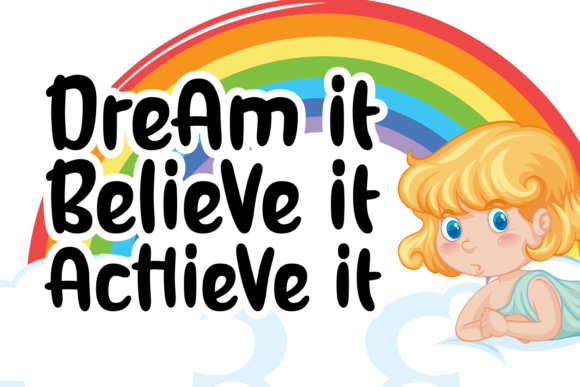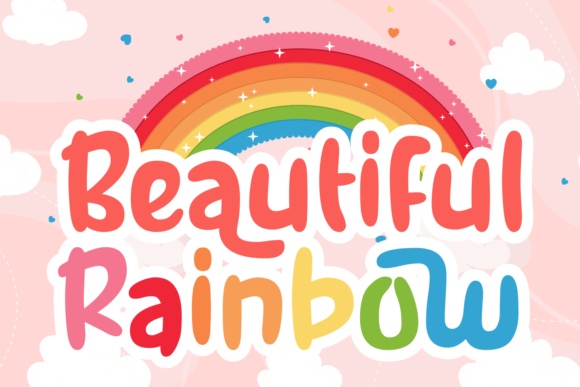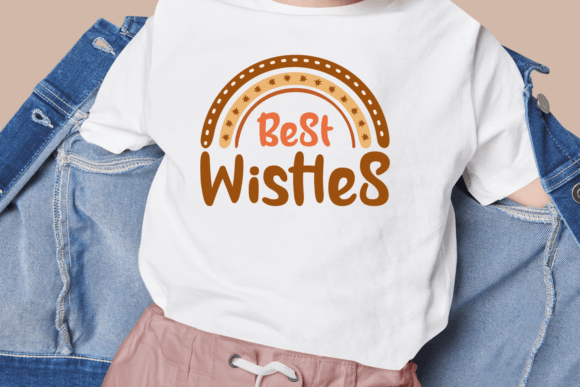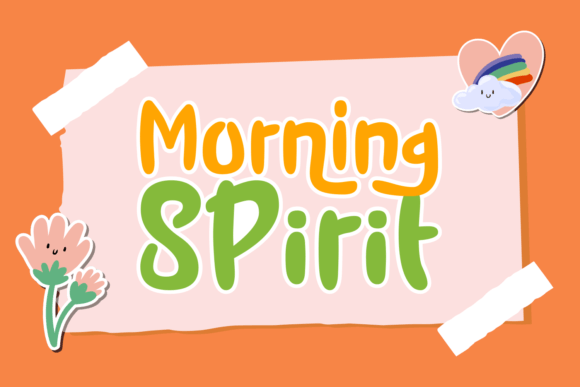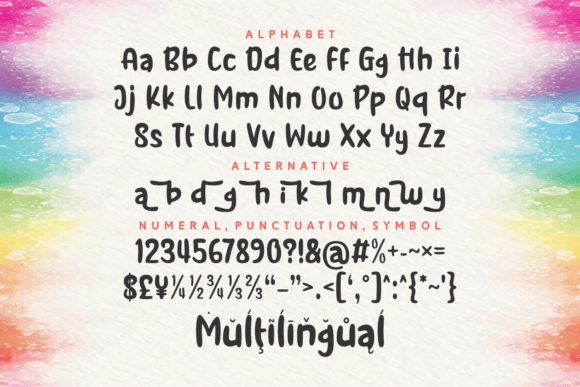
Introduction to Rainbow Sparkle Font
Rainbow Sparkle is a font that shines and dazzles with its sparkling and attractive letterforms.
With its bold, glittering strokes and eye-catching style, this font is perfect for creating designs that demand attention Let your creativity sparkle and shine with Rainbow Sparkle and create designs that truly stand out.
Key Features of Rainbow Sparkle Font
Why Choose Rainbow Sparkle Font?
Rainbow Sparkle Font offers exceptional quality and versatility, making it a valuable addition to your design toolkit. Whether you’re creating for personal projects or commercial use, Rainbow Sparkle Font delivers professional results.